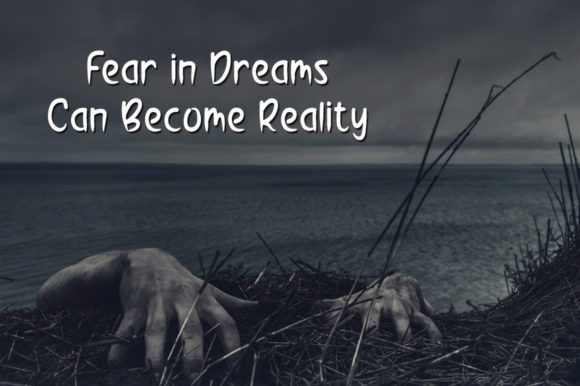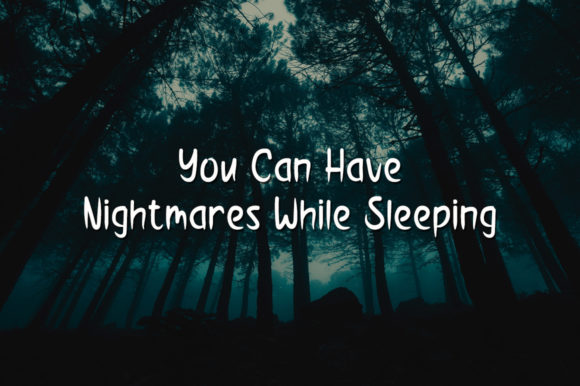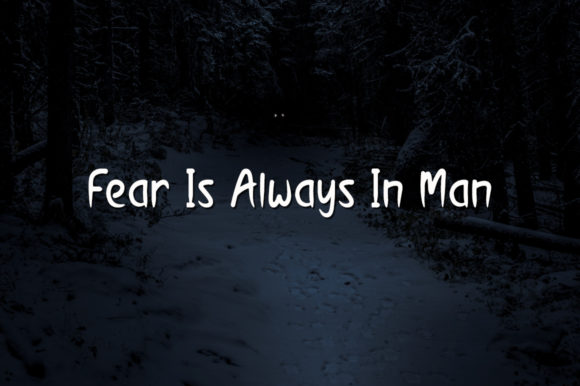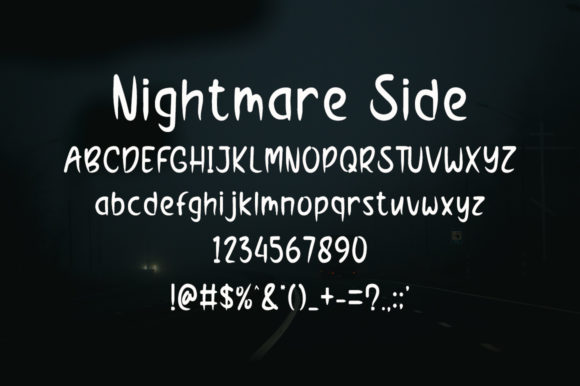
Introduction to Nightmare Side Font
Nightmare Side results out of a stunning pairing of a brush pen and pencil that makes it look incredibly endearing and authentic.
Use this gorgeous and unique handwritten font to bring any DIY project to life .